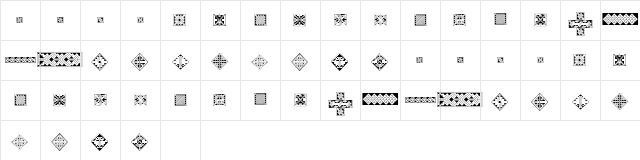
VTCeltia Keys Regular Free Font
VTCeltia Keys Regular
Design Context for VTCeltia Keys
VTCeltia Keys is a composed and adaptable typeface that performs quietly and consistently across a wide range of design contexts.